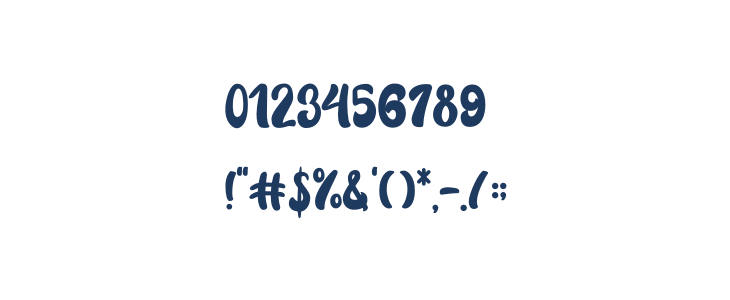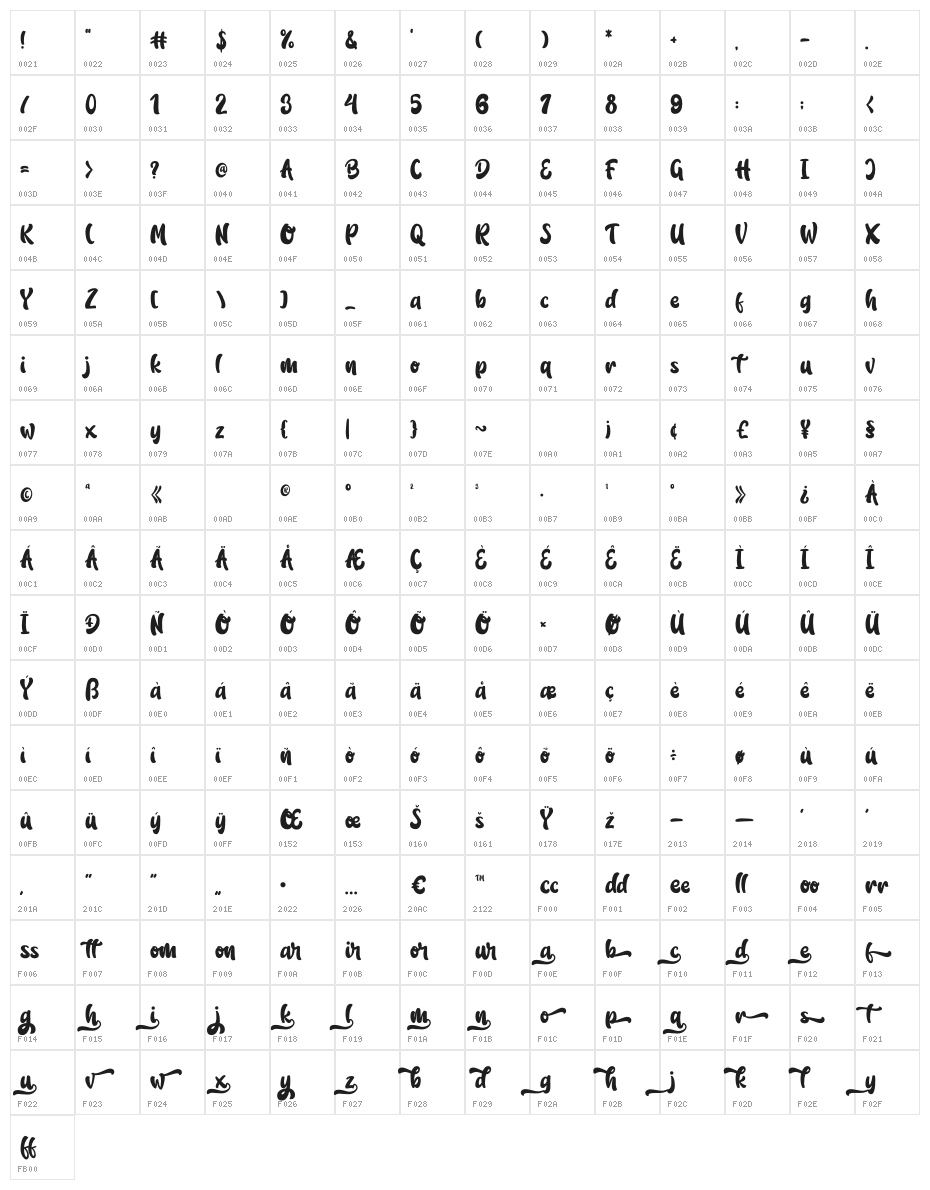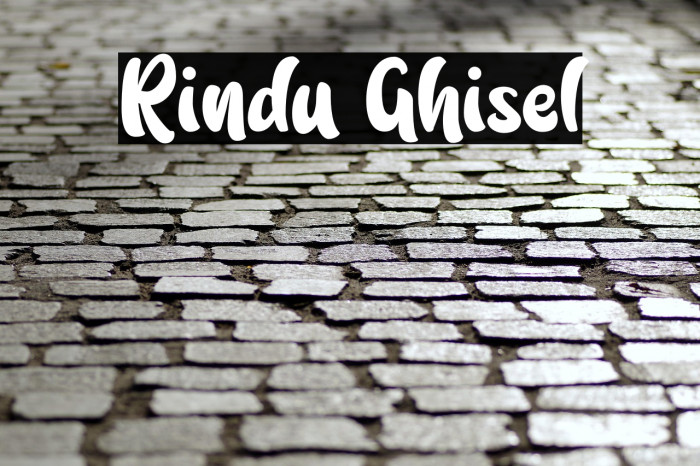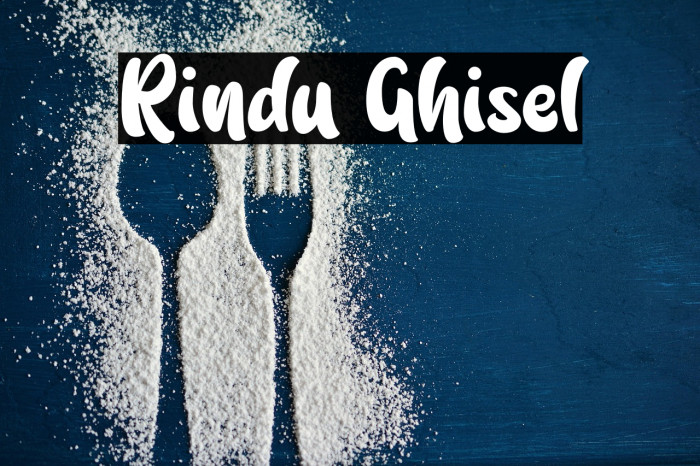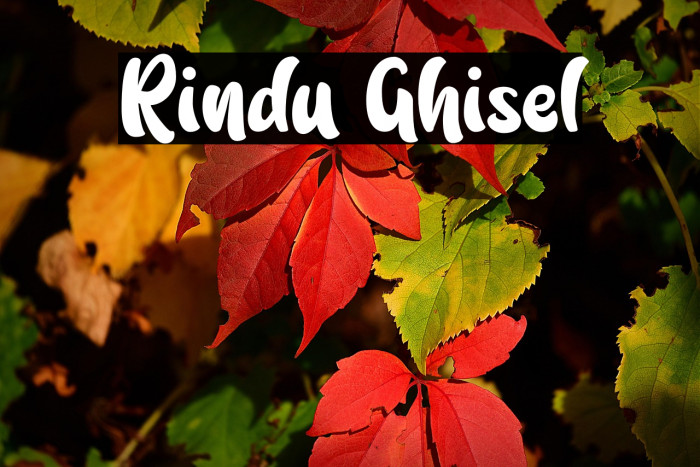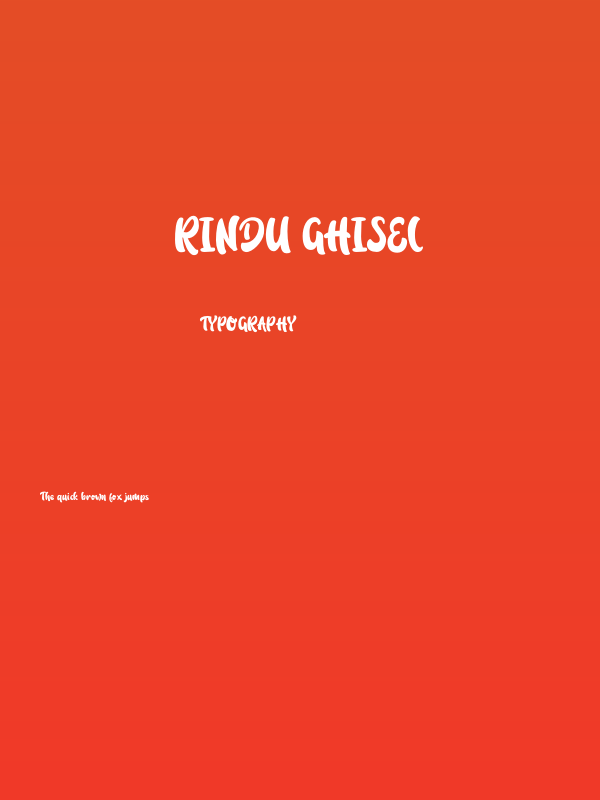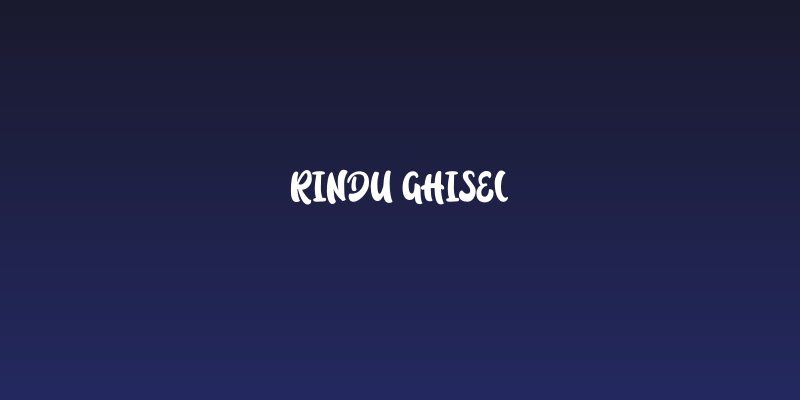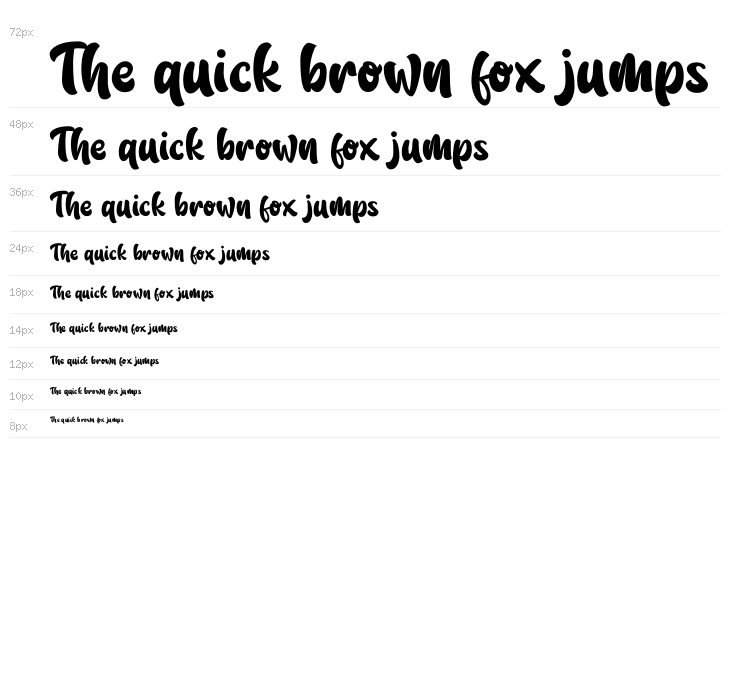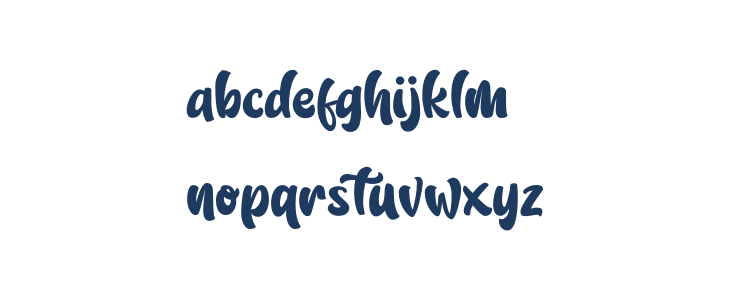
Rindu Ghisel Font
Rindu Ghisel Description
This font features a bold and playful script style with a handwritten feel. The characters are rounded and slightly slanted, giving it a dynamic and energetic appearance. The uppercase letters are bold and prominent, while the lowercase letters maintain a consistent flow with smooth curves. The numbers and special characters are designed to match the overall style, ensuring a cohesive look across all text. This font's unique style makes it suitable for creative and informal projects, adding a touch of personality and flair.